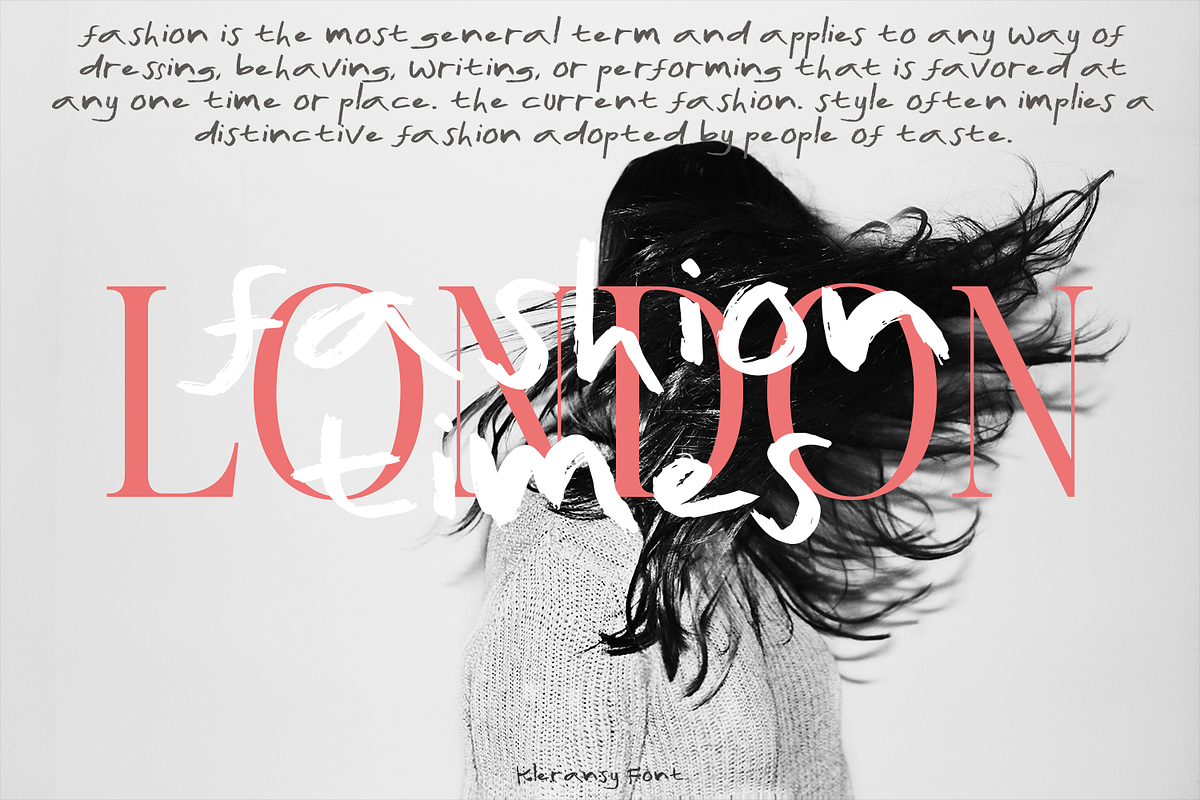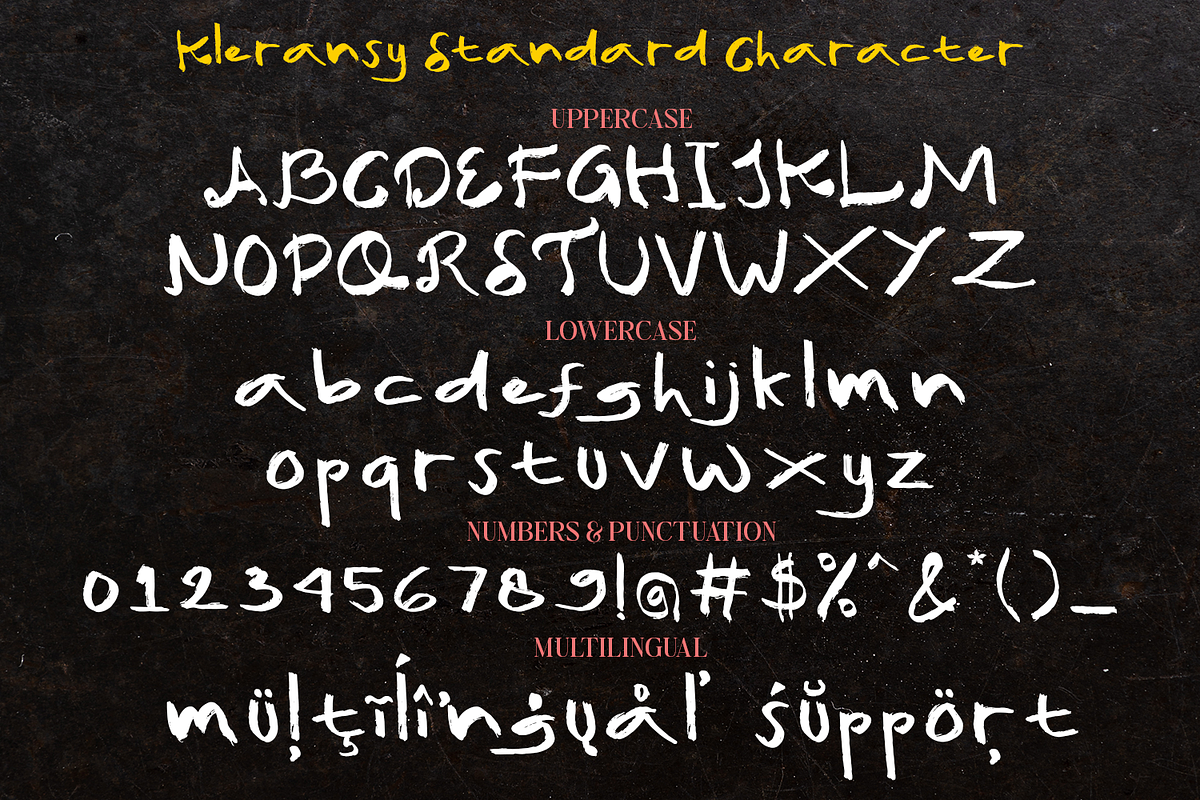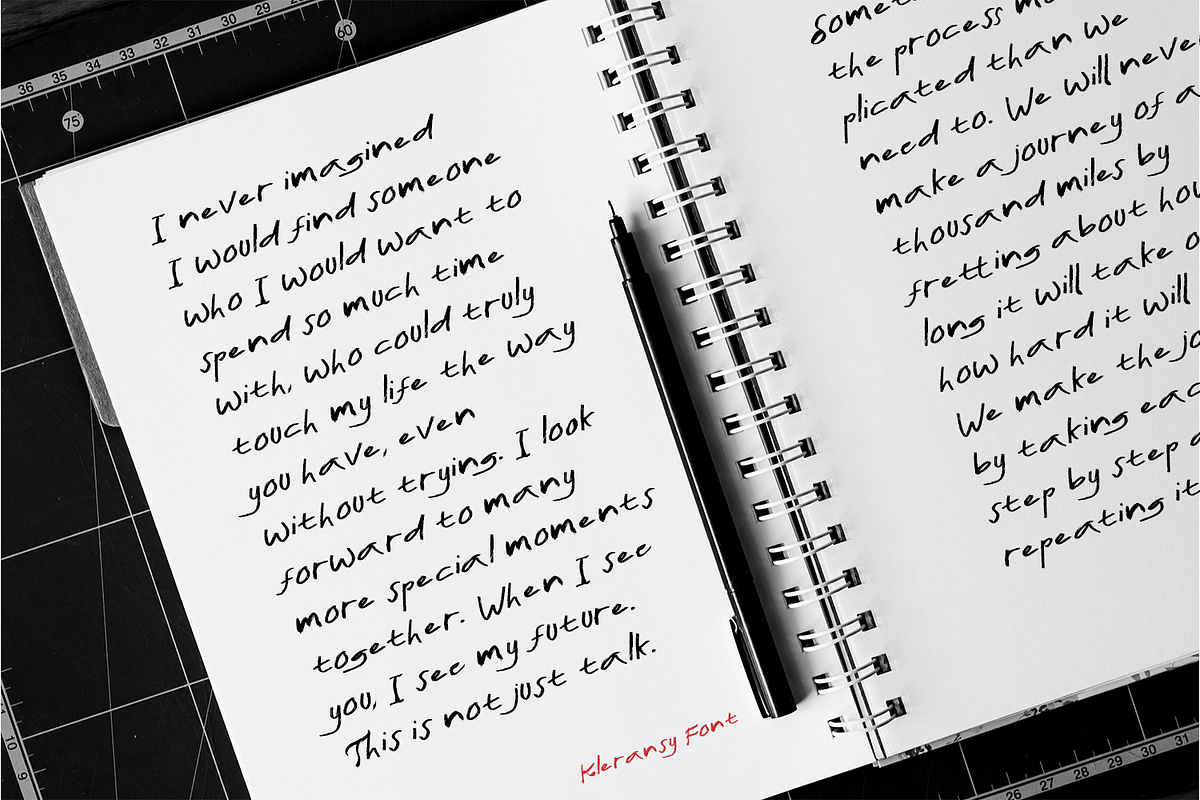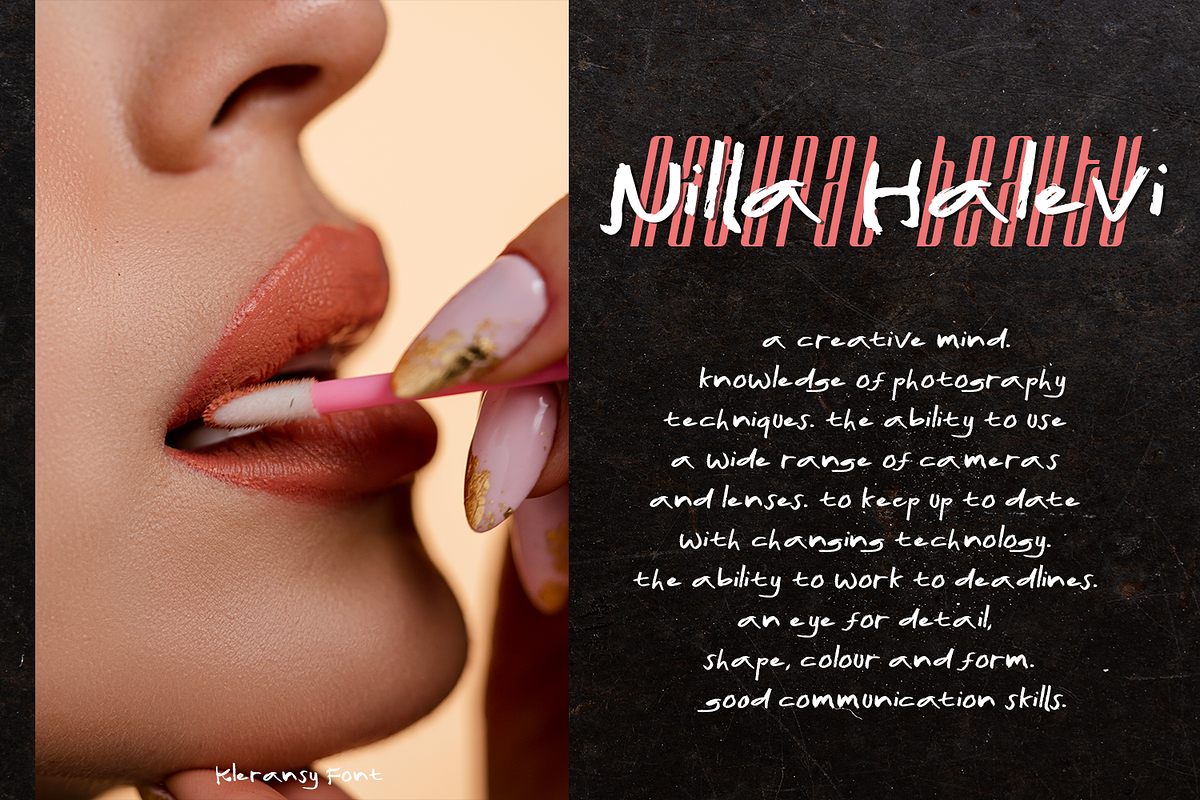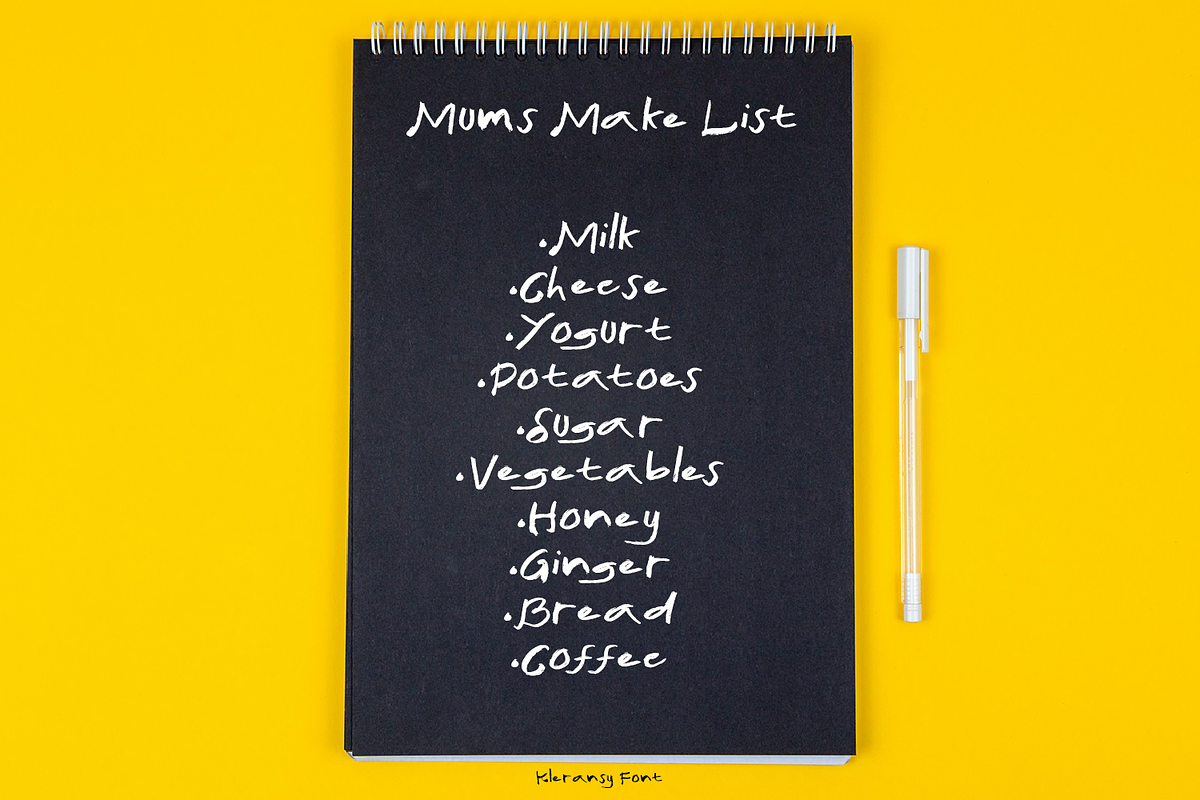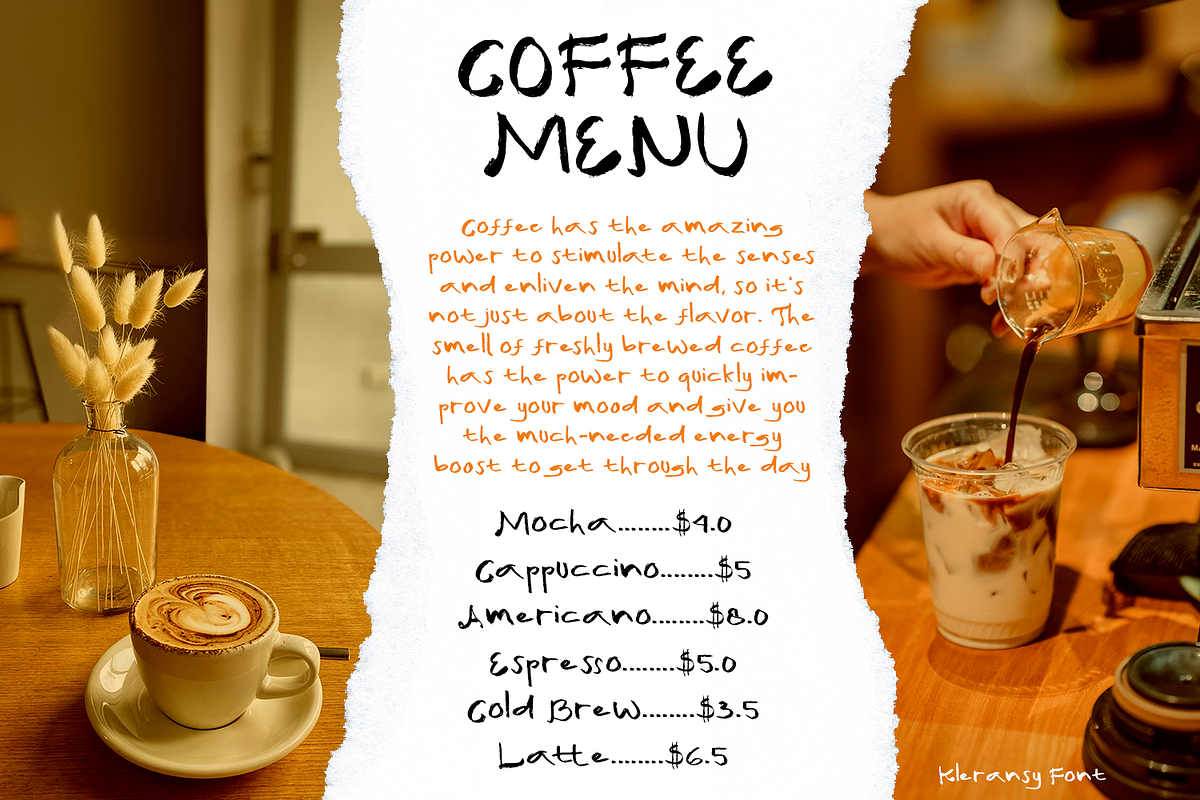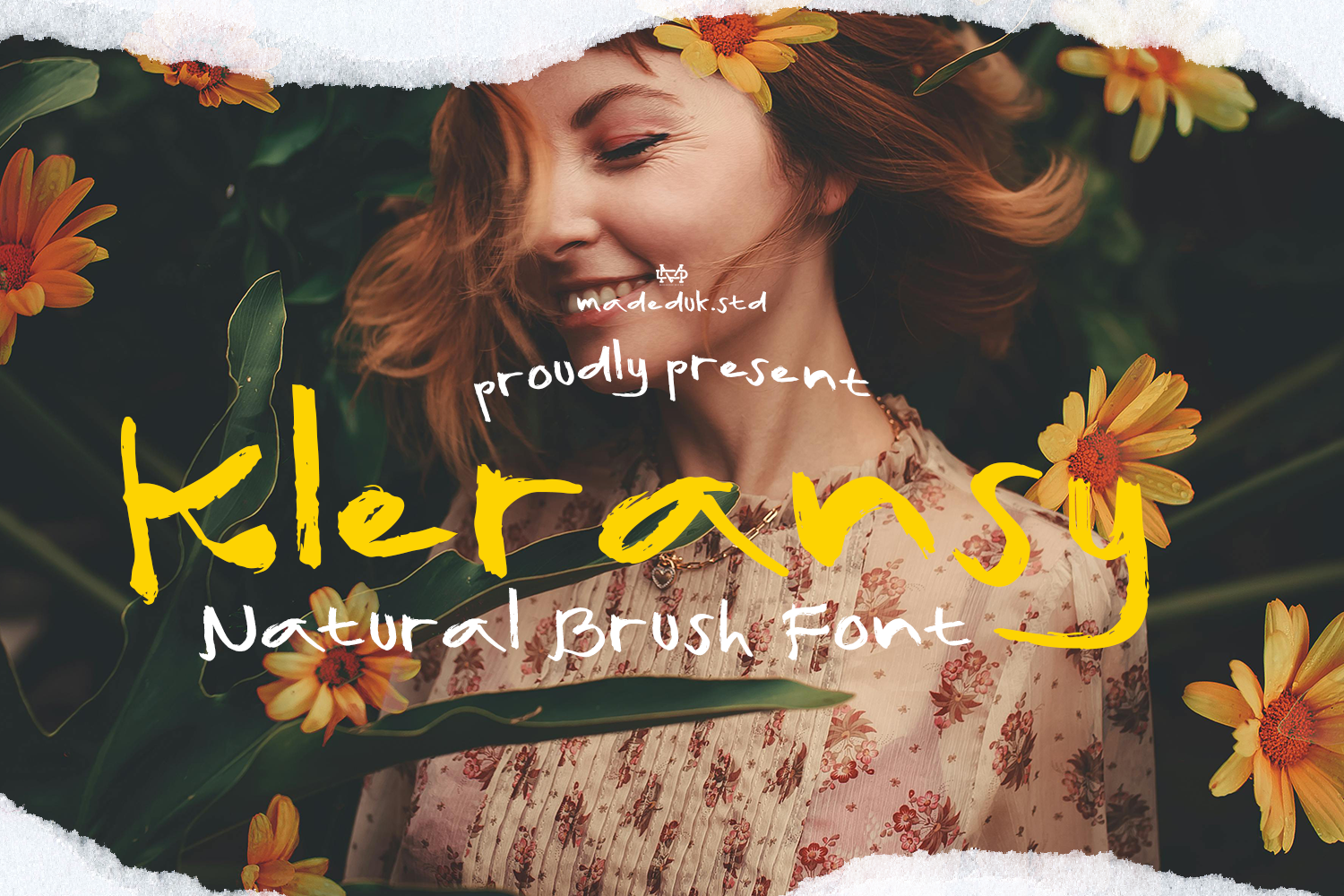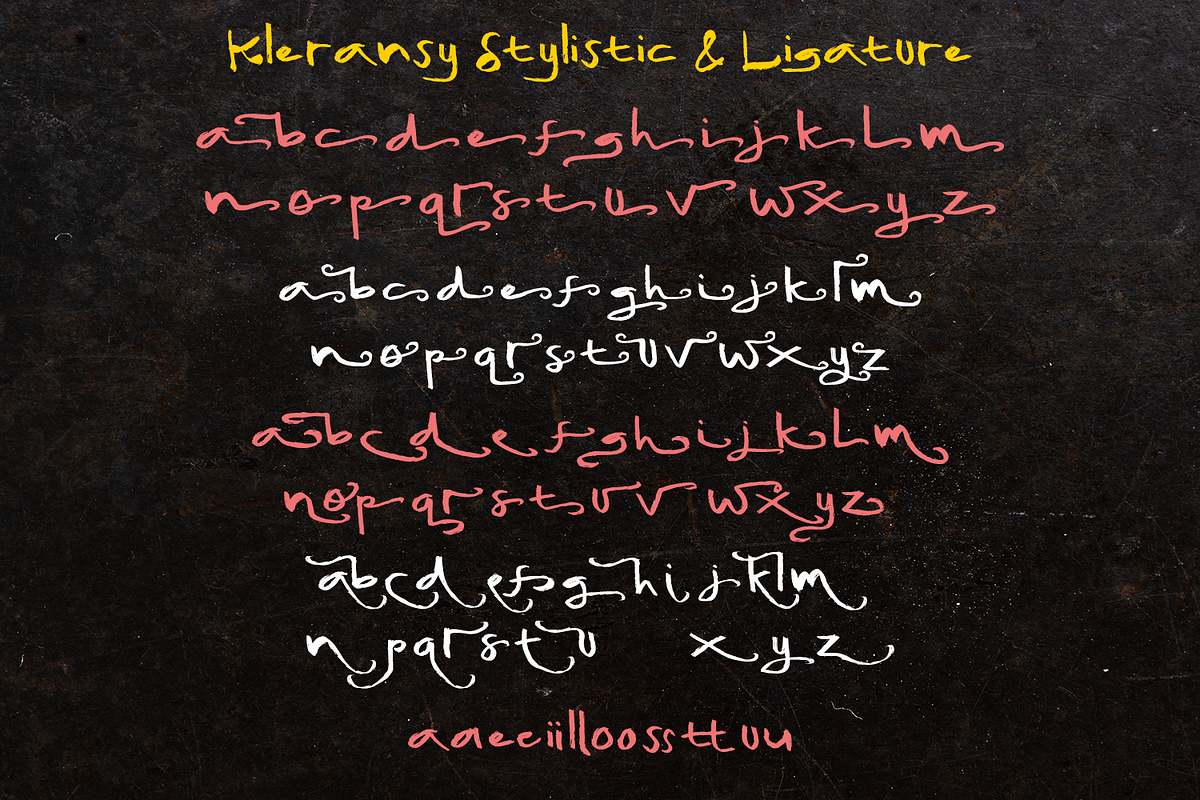
Kleransy Brush Font
Really excited to introduce Kleransy is a natural brush font! Come with much alternative and this font perfect for poster design, book covers, merchandise, fashion campaigns, newsletters, branding, advertising, magazines, greeting cards, album covers, and quote designs and more.
- International Glyphs